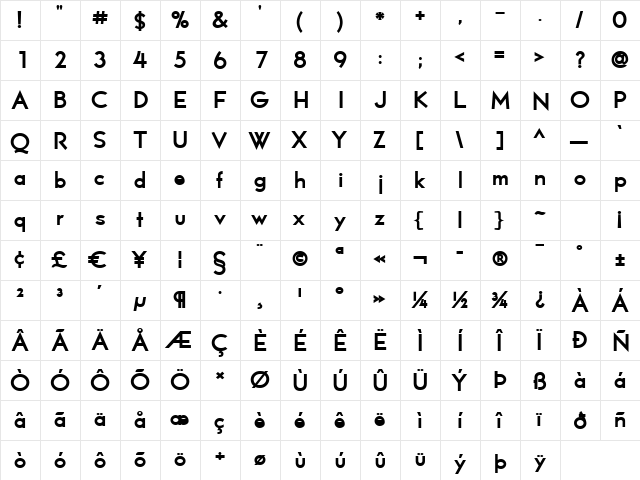
Lionel Text Diesel Regular
Design Context for Lionel Text Diesel Typeface
Lionel Text Diesel is a composed and adaptable typeface that performs quietly and consistently across a wide range of design contexts.